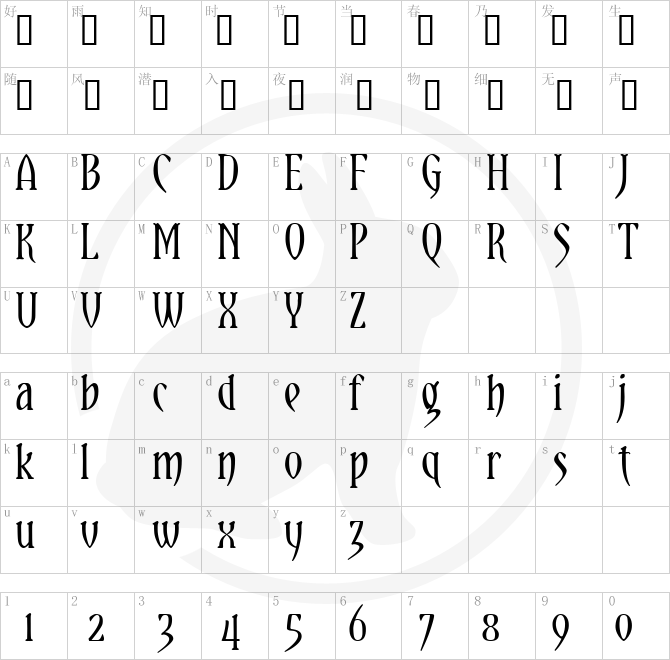
- Font Name:Yataghan
Yataghan.ttf is a very beautiful artistic font, Yataghan.ttf is widely used in the design and printing of various books and pictures,Yataghan.ttf has a strong visual impact,Yataghan.ttf is a commonly used font in newspapers, magazines and books, and is used in posters, e-commerce Poster design, store design, logo design, font design and other fields.Yataghan.